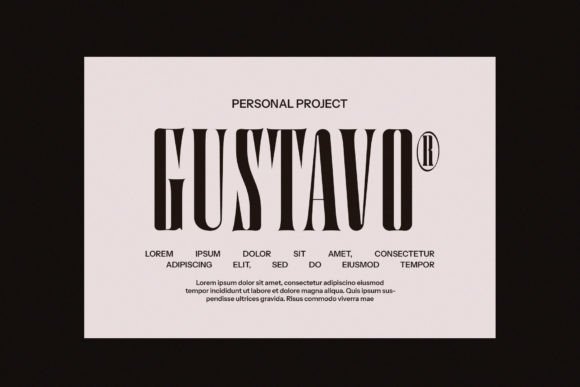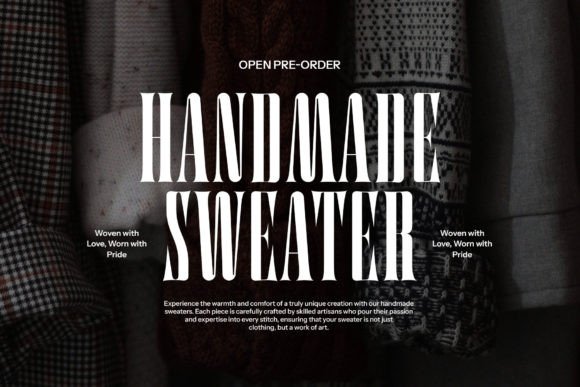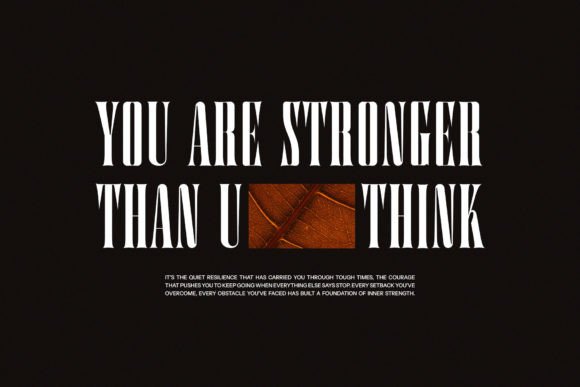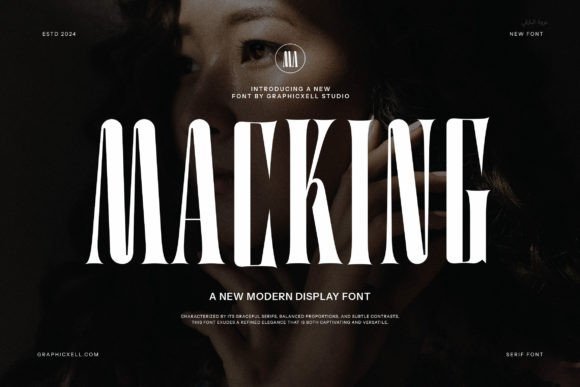
Introduction to Macking Font
Macking Typeface is a modern serif typeface that offers a fashionable touch.
It doesn’t only look sophisticated but also charming What makes it interesting is the delicate curves, which bring an elegant style to it.